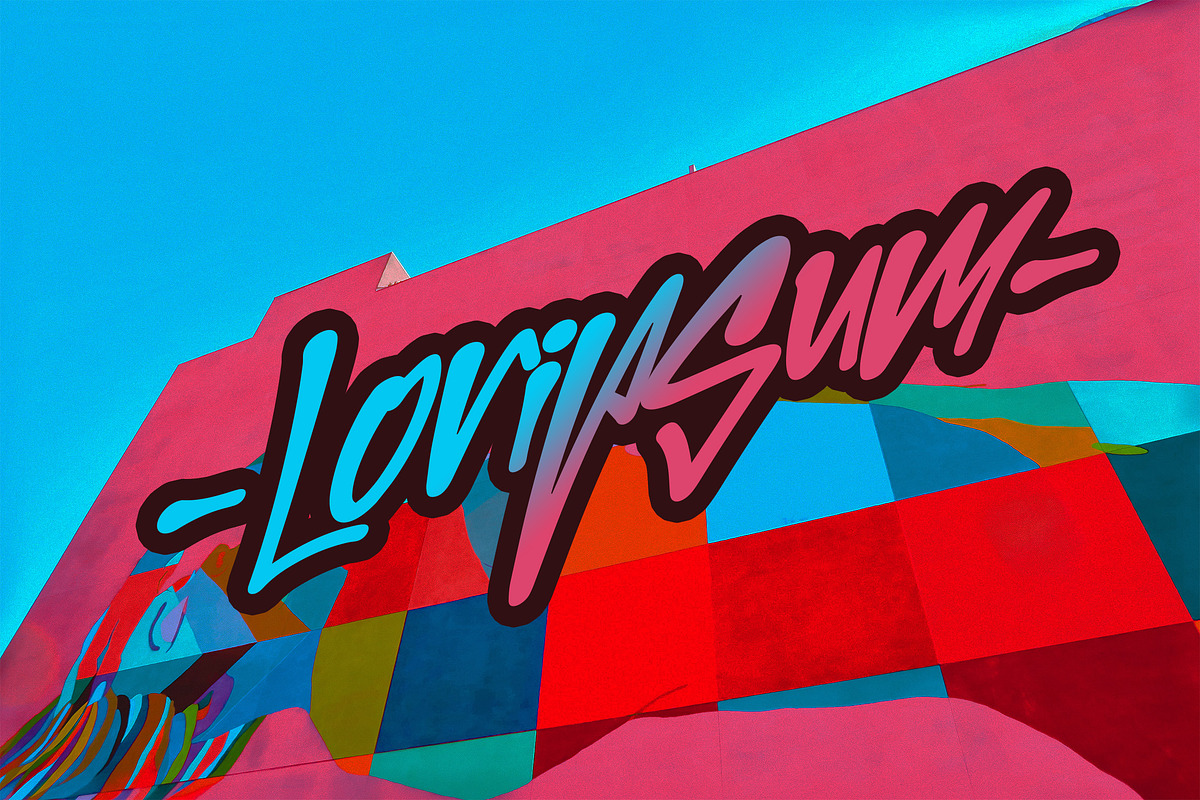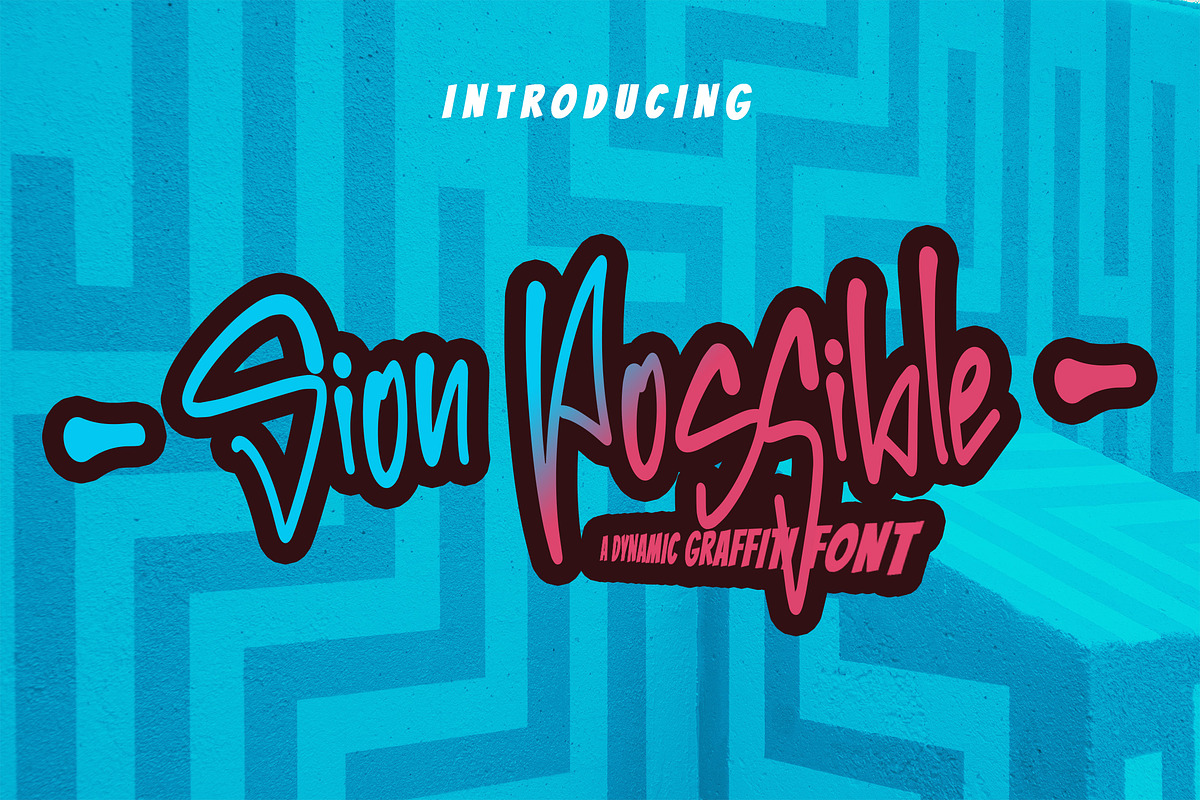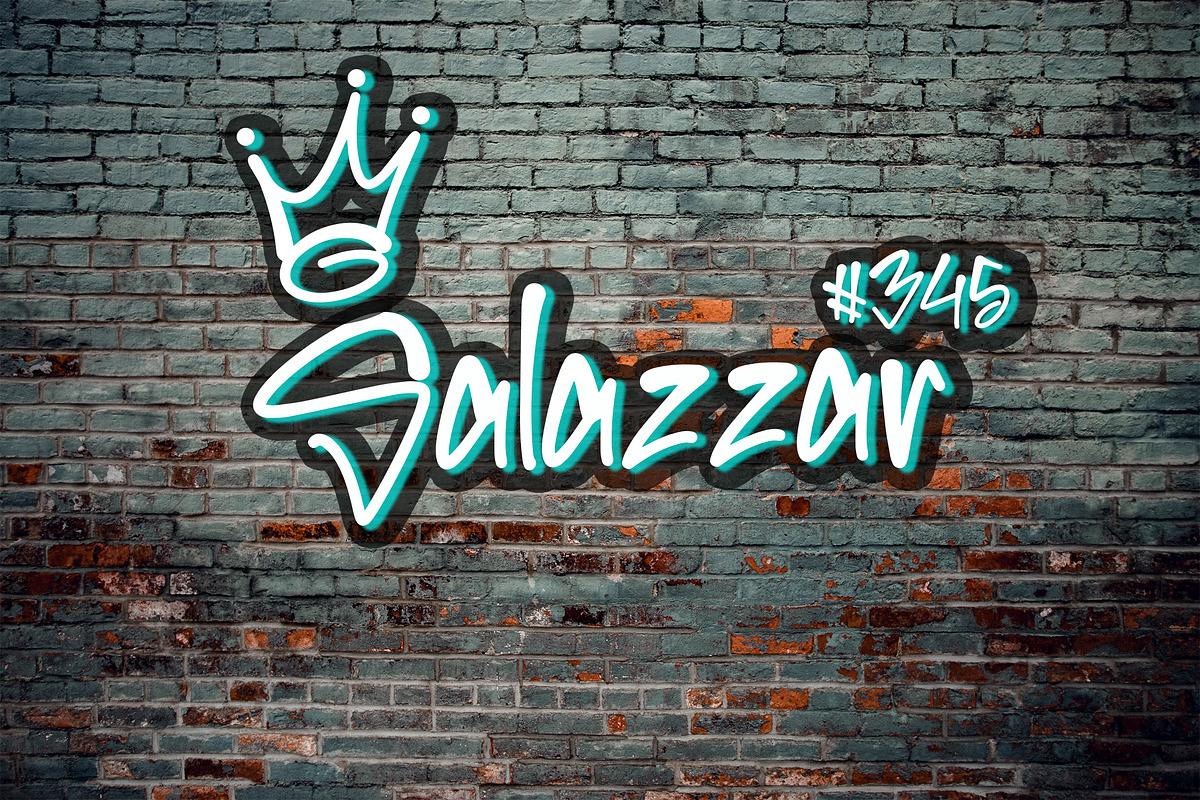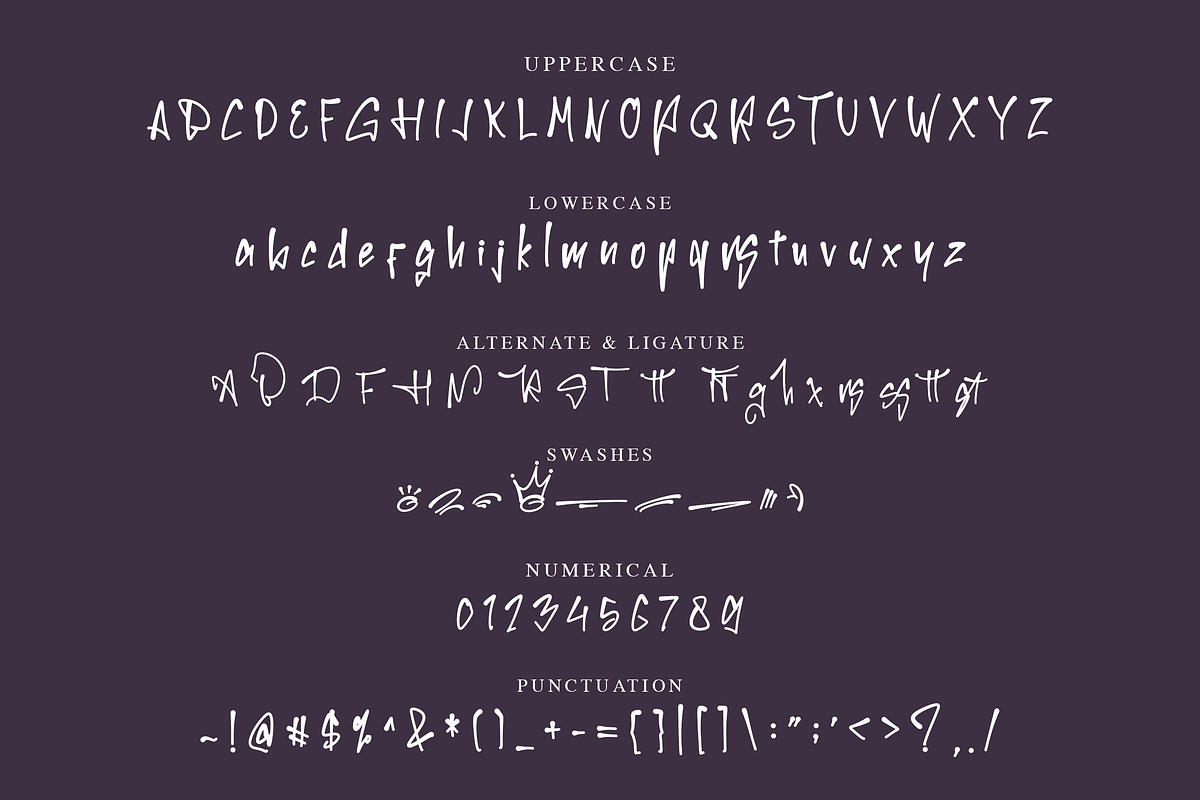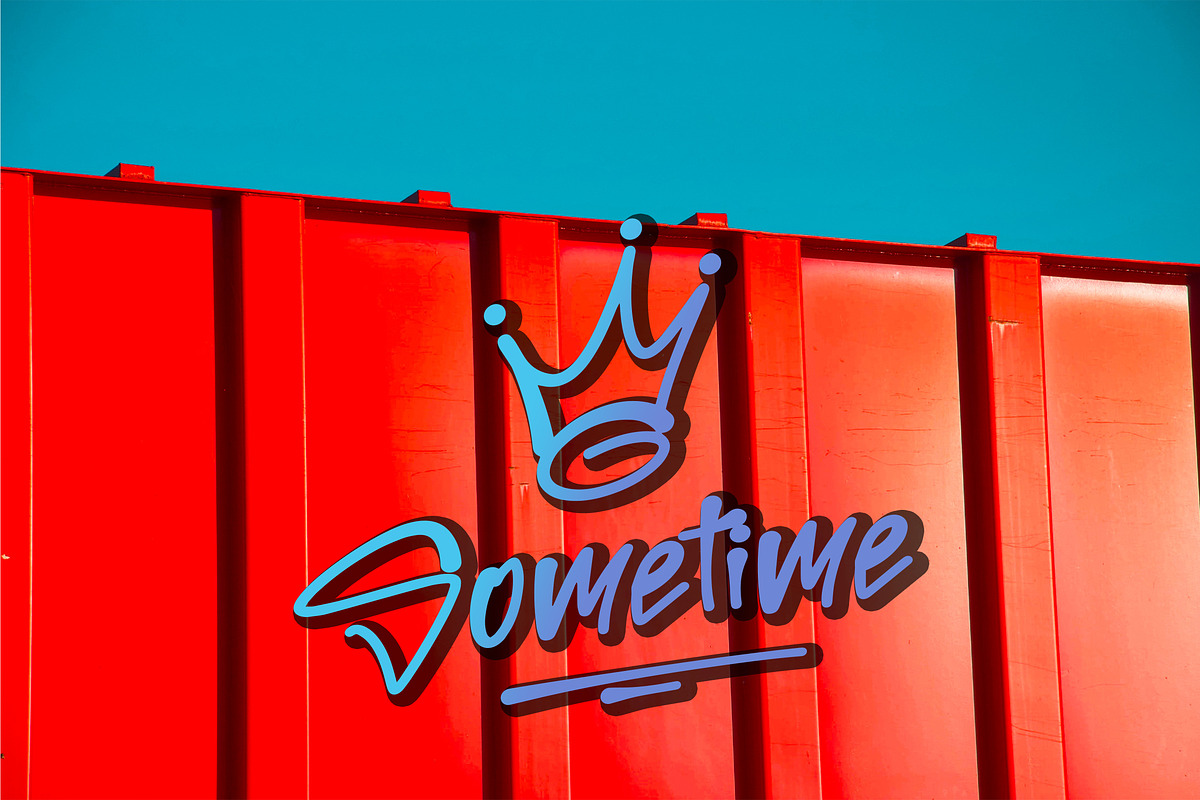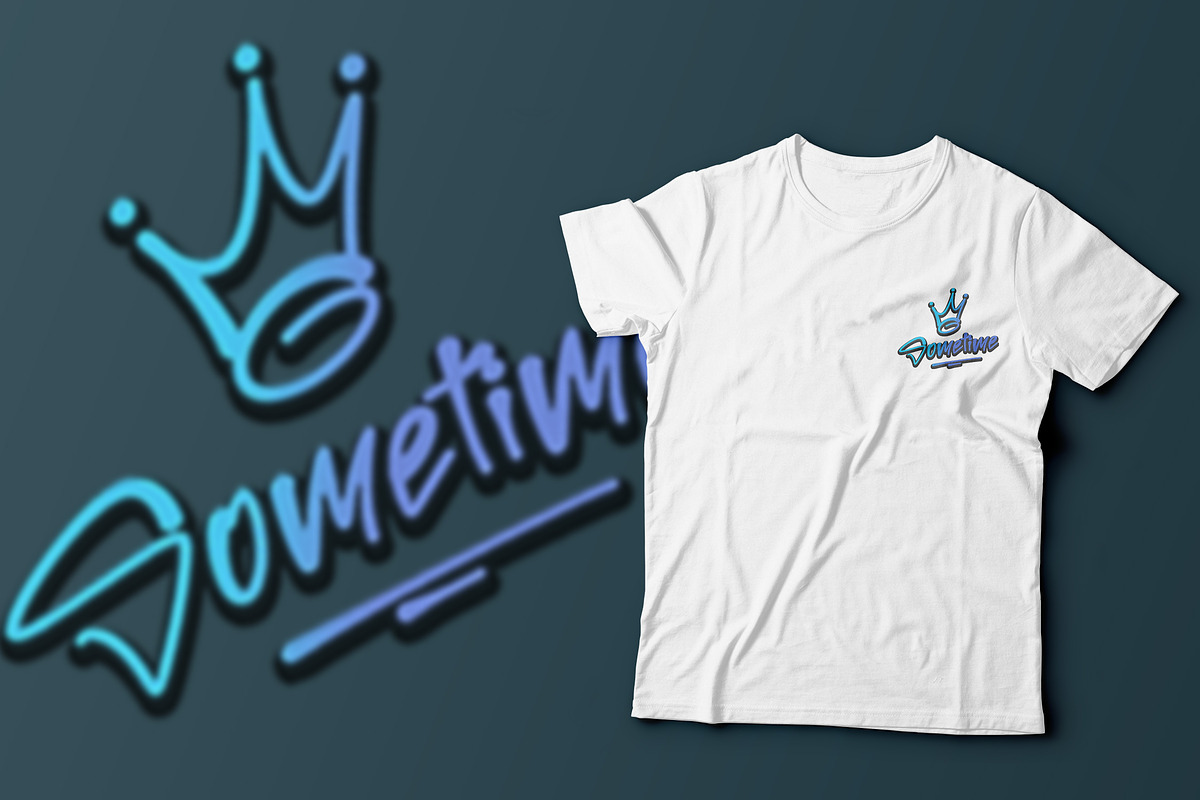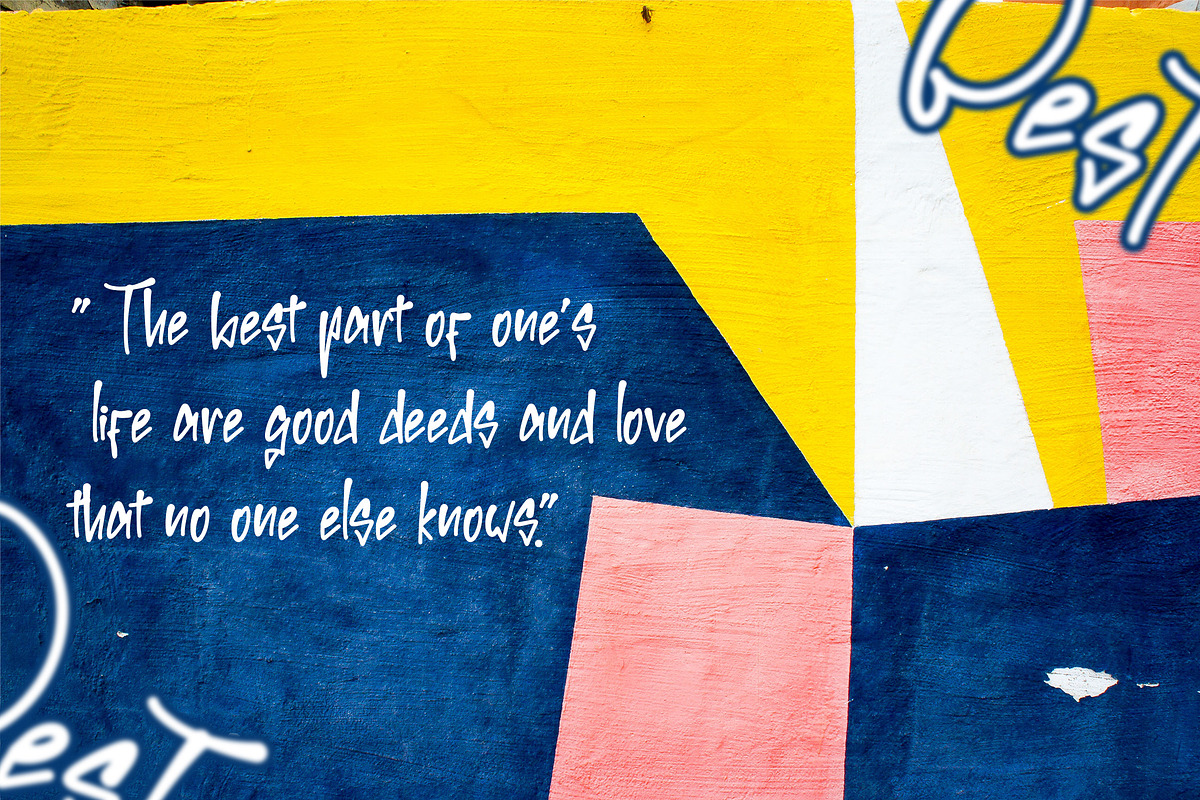
Sion Possible - Graffiti Font
Sion Possible is a display font with Graffiti style. Is a font style that is made as if it were handwritten. Can be applied to support the graphic appearance of the product to be more attractive and unique. This font is suitable for making previews and covers, Graffiti logo designs, shirt designs and other graphic needs
Sion Possible font with uppercase characters A-Z, lowercase characters a-z, punctuation, swashes, stylistic alternate and ligature characters that enhance this font shape.
-Ligature
-Stylistic Alternate
-Swashes